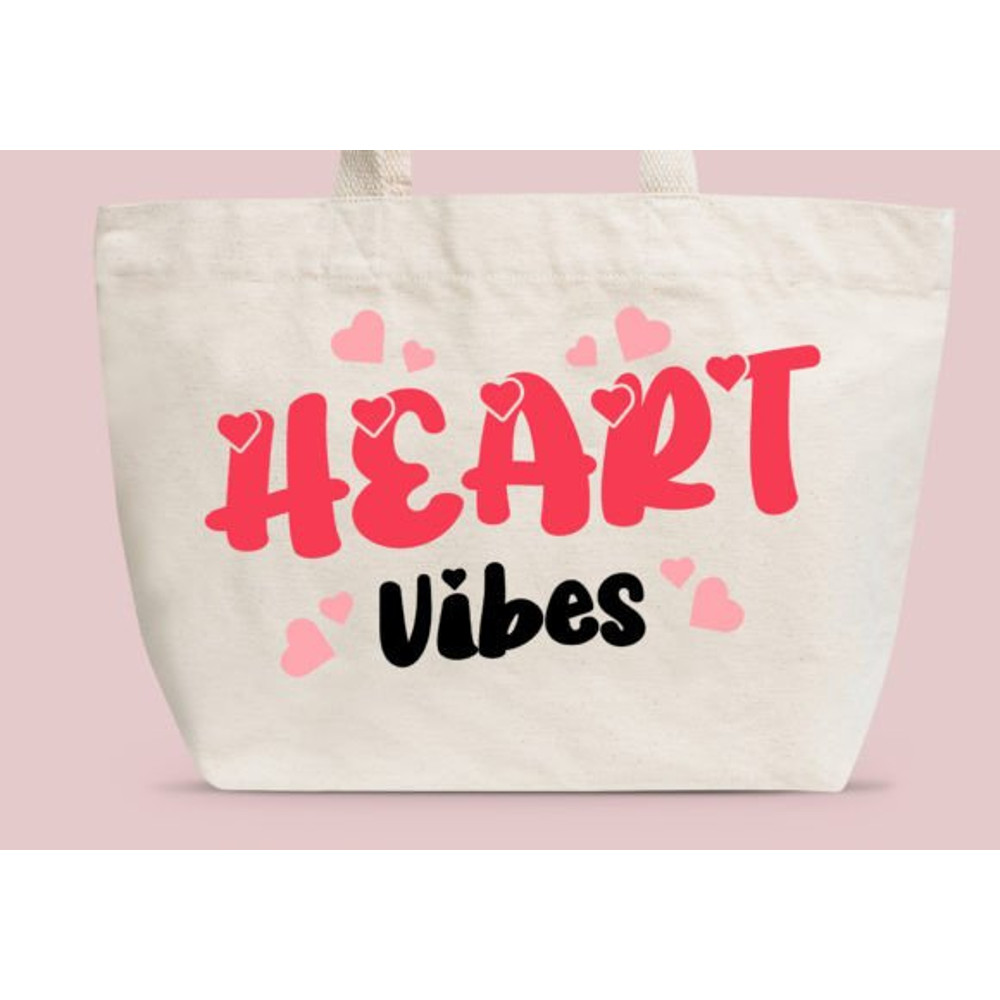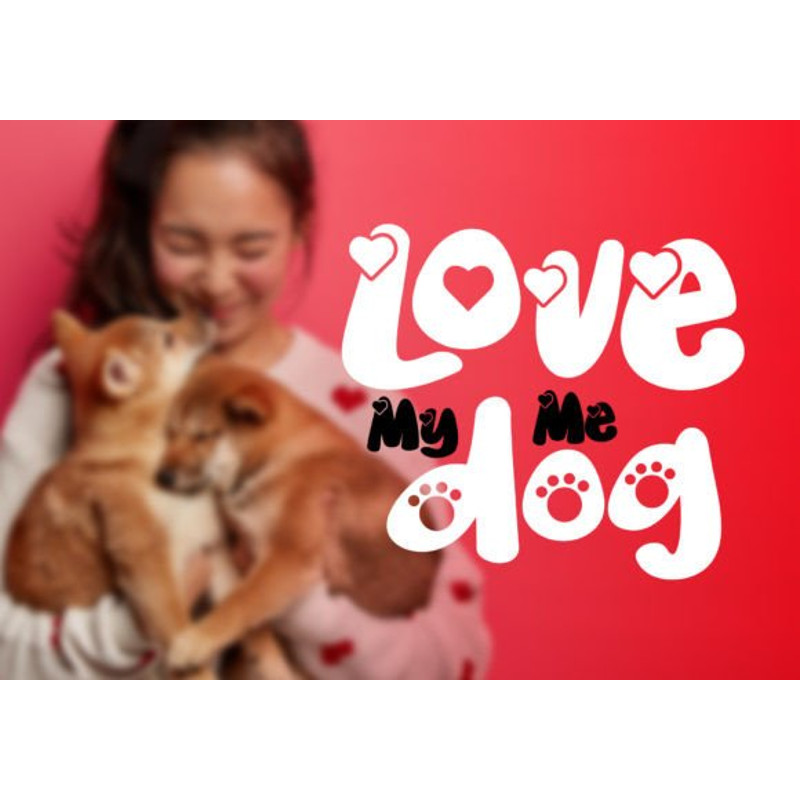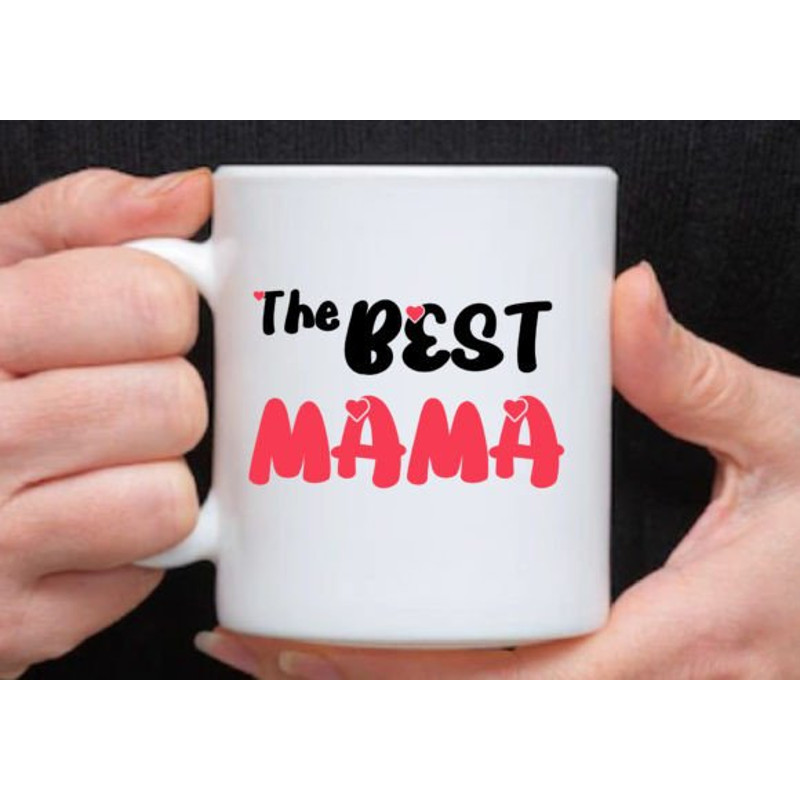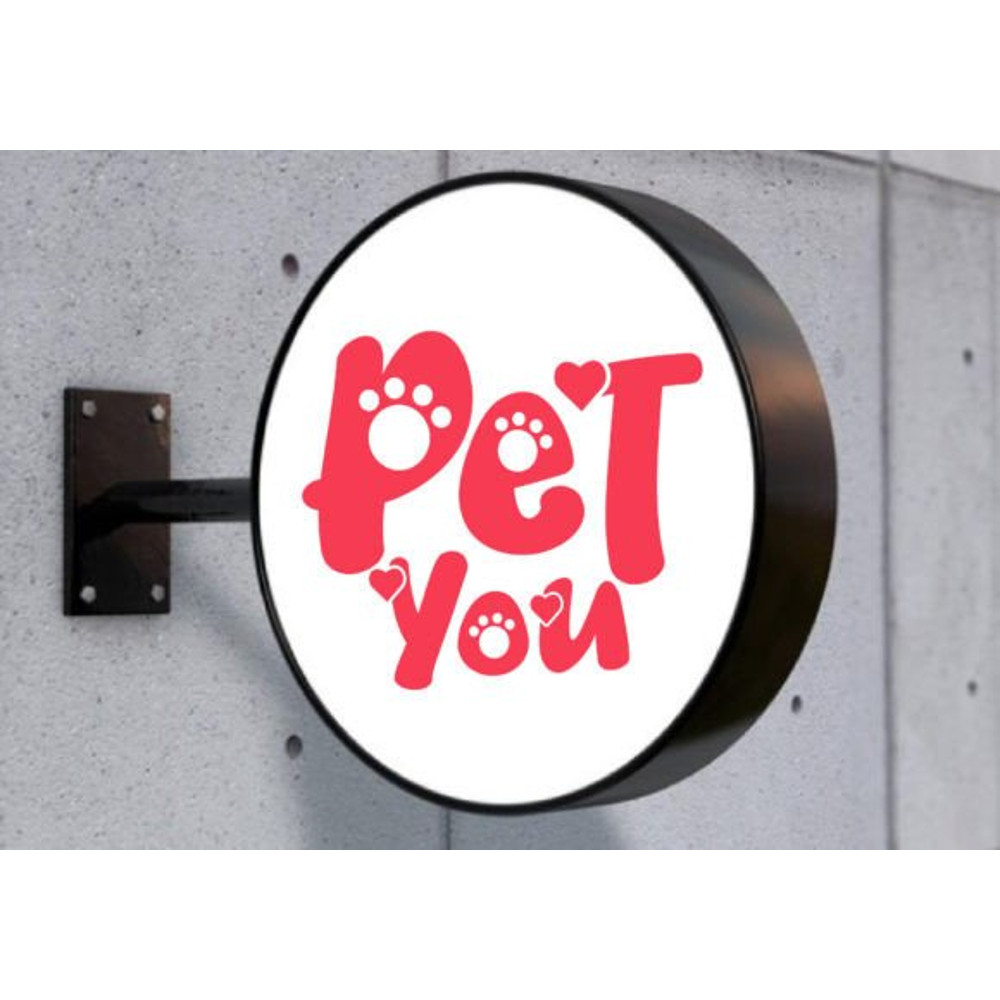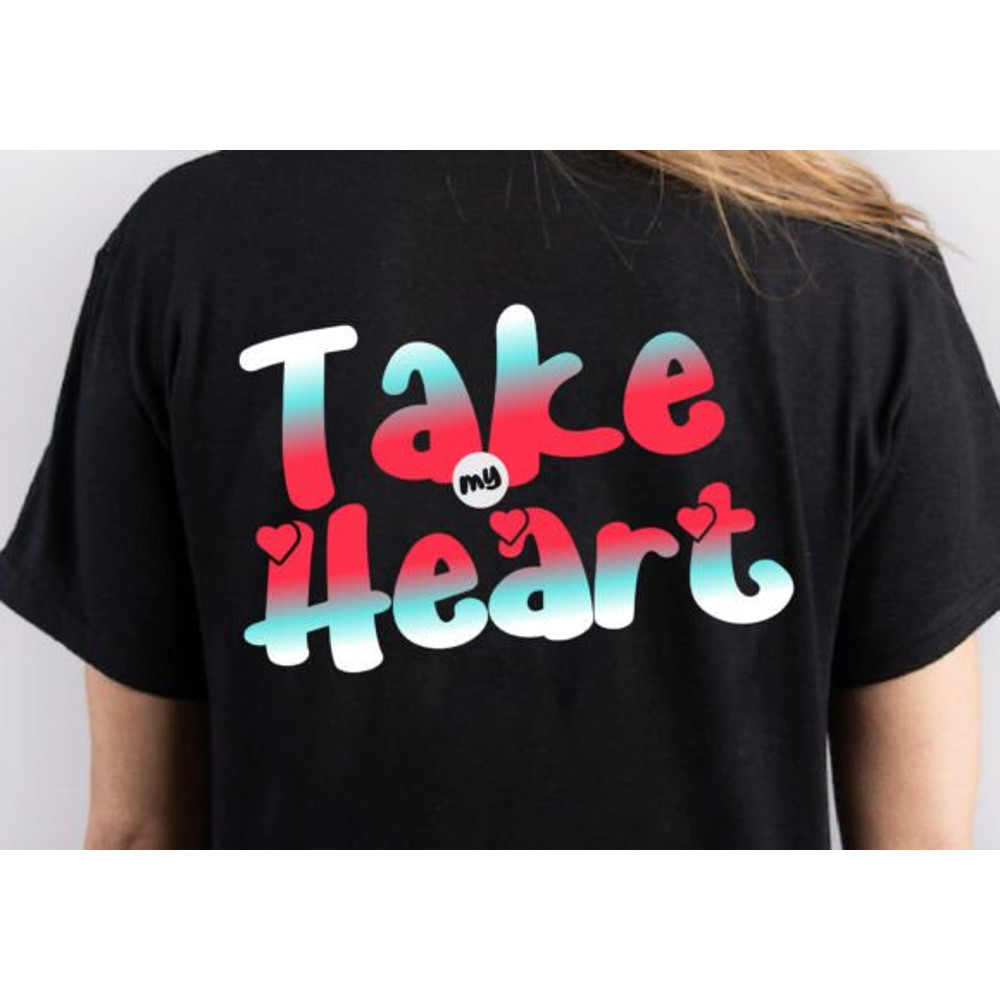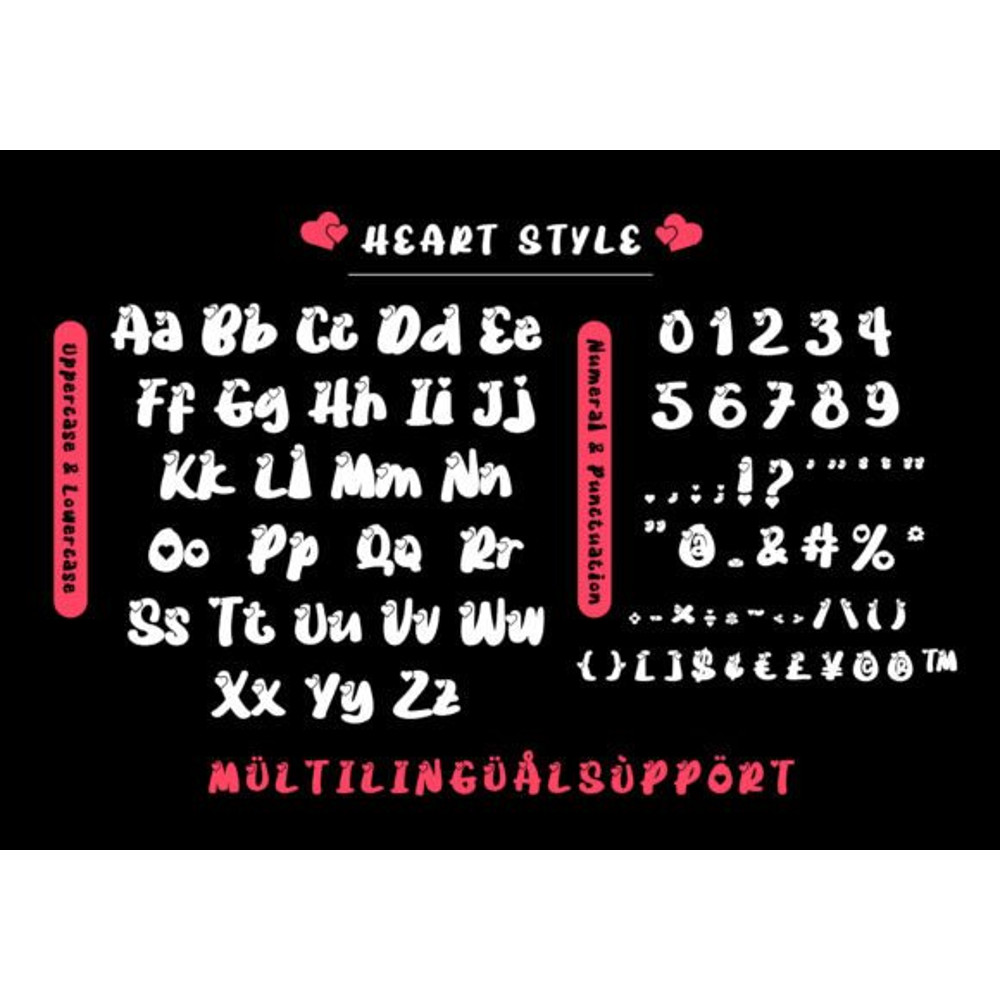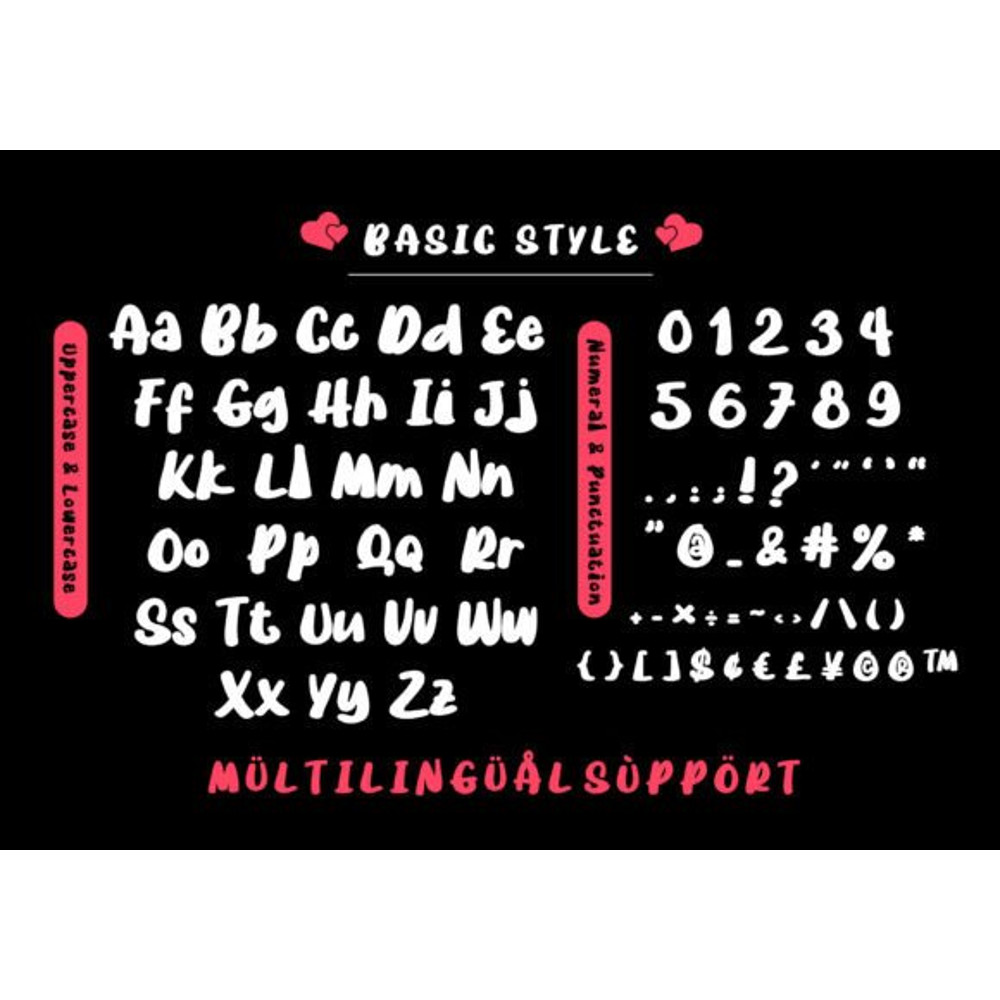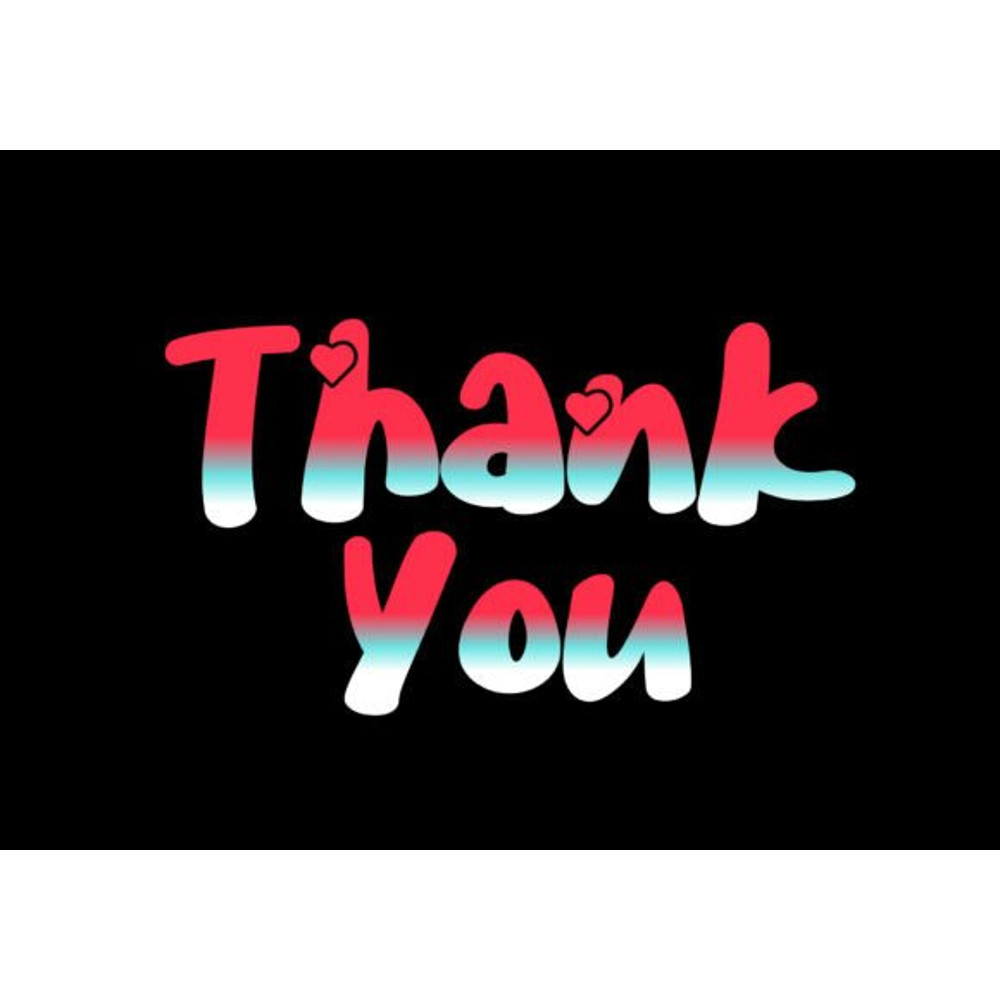
Love My Dog Font
Love My Dog is a lovely decorative display font with a great punch. Everything written in this font will be instantly recognizable and will attract attention. It will work great for comic book style, online games, cards, posters, movie titles, eye-catching social media posts, or anything that requires youthfulness and courage.